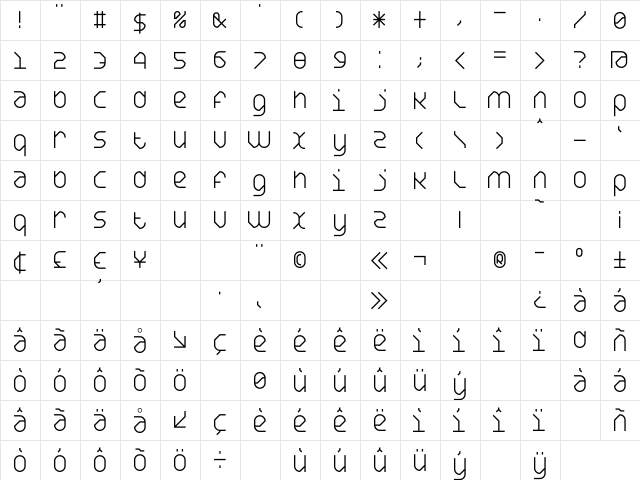
DS Yakuti45 Regular
Design Context for DS Yakuti45 Typeface
DS Yakuti45 is a composed and adaptable typeface that performs quietly and consistently across a wide range of design contexts.